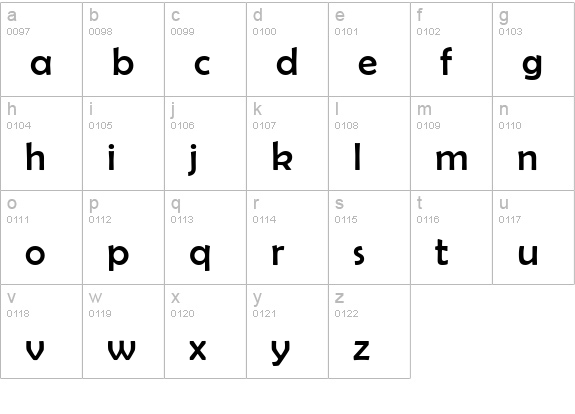
Berlin Sans FB Font Details
Berlin Sans FB is a modern and elegant sans-serif typeface that exudes sophistication and style. With its clean lines and subtle curves, this font is versatile and perfect for a wide range of design projects. Whether you're creating a sleek website, a professional presentation, or a stylish logo, Berlin Sans FB is sure to make a lasting impression. What sets Berlin Sans FB apart is its unique blend of classic elegance and contemporary flair. The font strikes the perfect balance between tradition and innovation, making it a timeless choice for any design application. Its bold yet refined appearance commands attention while maintaining a sense of understated charm. One of the best things about Berlin Sans FB is that it is completely free to download at FontsMarket.com. This means that you can easily access this high-quality font without breaking the bank. So why settle for generic fonts when you can elevate your designs with the sophisticated allure of Berlin Sans FB? Download it today and see the difference for yourself.